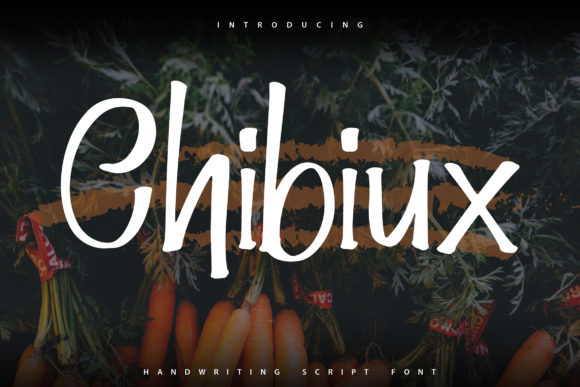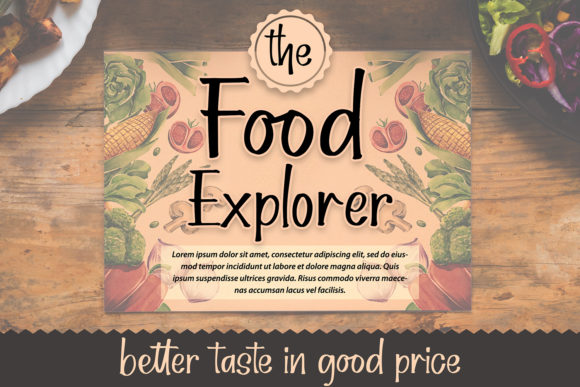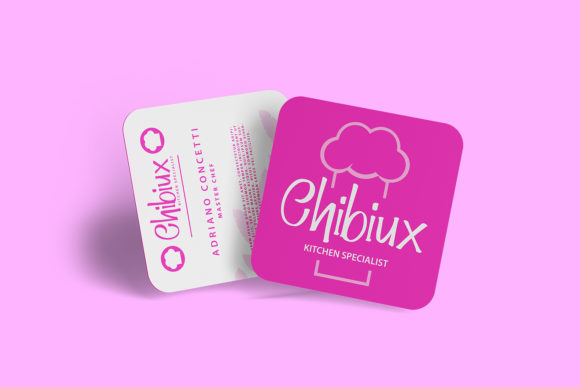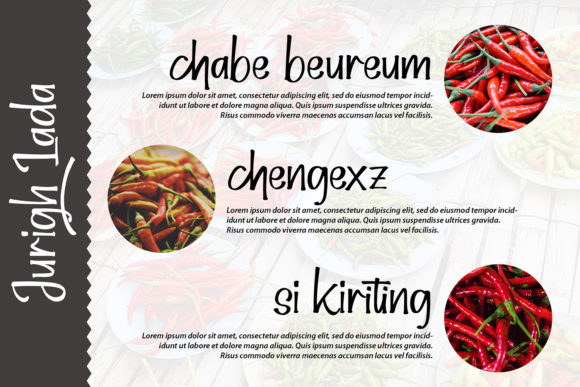
About Chibiux Font
Chibiux is a sweet and friendly handwritten font. Its natural and unique style makes it incredibly fitting to a large pool of designs. The only limit is your imagination!